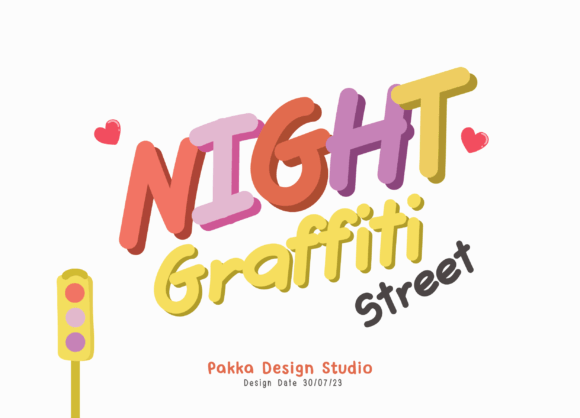
Unleash the captivating energy of the night with Night Graffiti Street Font, a mesmerizing fusion of graffiti's rebellious spirit and whimsical doodles. This script font exudes the vibrancy of nocturnal urban art, capturing the essence of illuminated graffiti under moonlit skies.
With every stroke, Night Graffiti Street Font weaves a tale of urban mystery and artistic expression. Its graffiti-inspired appearance adds a touch of rebellious creativity to your designs, while the whimsical doodles infuse a sense of playfulness and wonder.
Step into the world of Night Graffiti Street Font, where creativity thrives under the cloak of darkness. Let your designs resonate with the rhythm of the night, where colors dance and imaginations run wild.
This font is the perfect choice for projects that demand a touch of urban edge and artistic flair. Whether you're creating posters for underground events, designing flyers for late-night parties, or crafting social media graphics that capture the pulse of city life, Night Graffiti Street Font delivers an unforgettable impact.
Its bold and stylish characters command attention, while its intricate details reward closer inspection. Each letter is a work of art, adorned with intricate doodles that tell stories of hidden worlds and urban adventures.
Embrace the captivating energy of Night Graffiti Street Font and transport your audience to a world where creativity knows no bounds. Let your designs speak volumes, echoing the vibrant spirit of the city's nocturnal art scene.